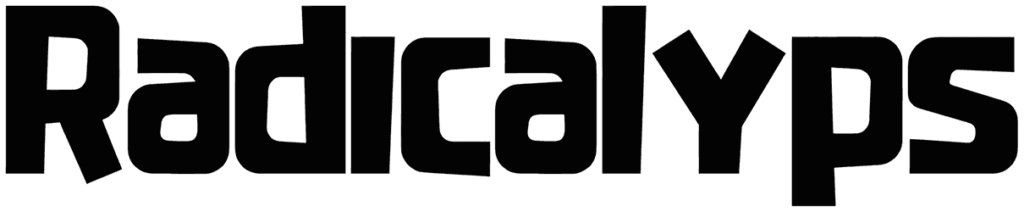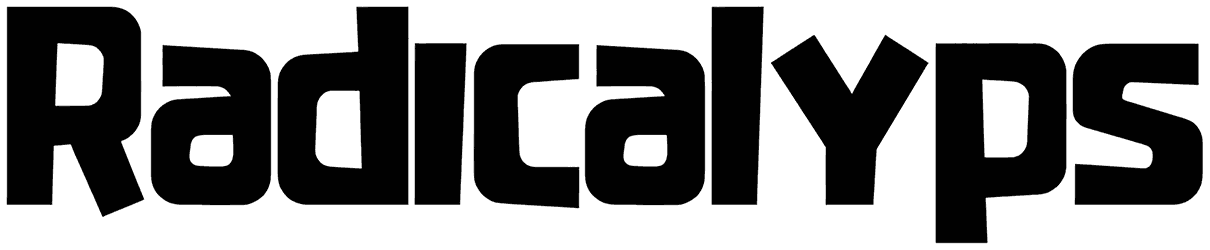
Radicalyps Font
Would you like to display your words with a bold and unique font? This playful cartoon font has the same mood that could be harmonized with many ideas. Radicalyps font is a nice choice for a lot of projects like posters, games, apparel, packaging, and so forth. Set this fancy font and overjoy it.